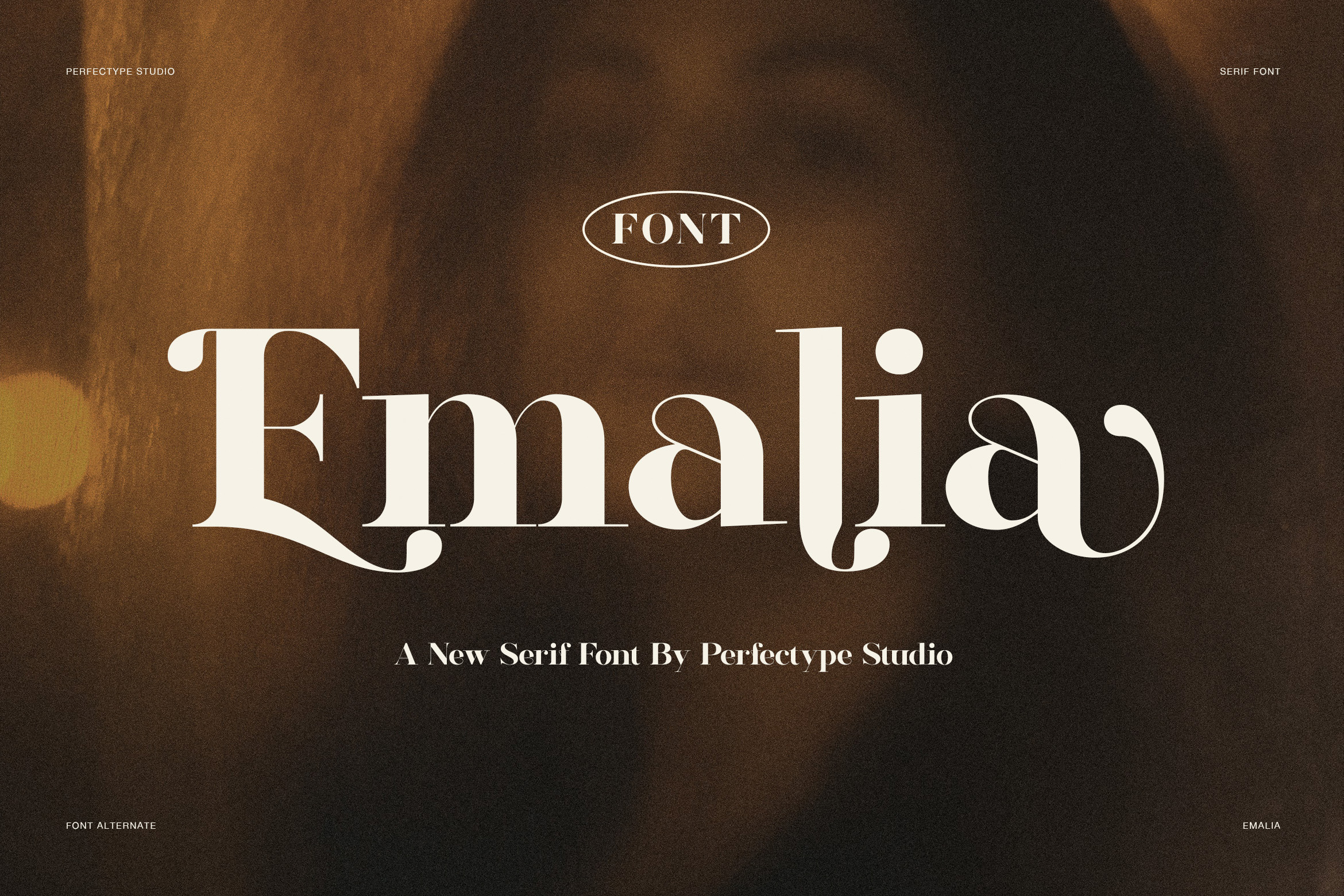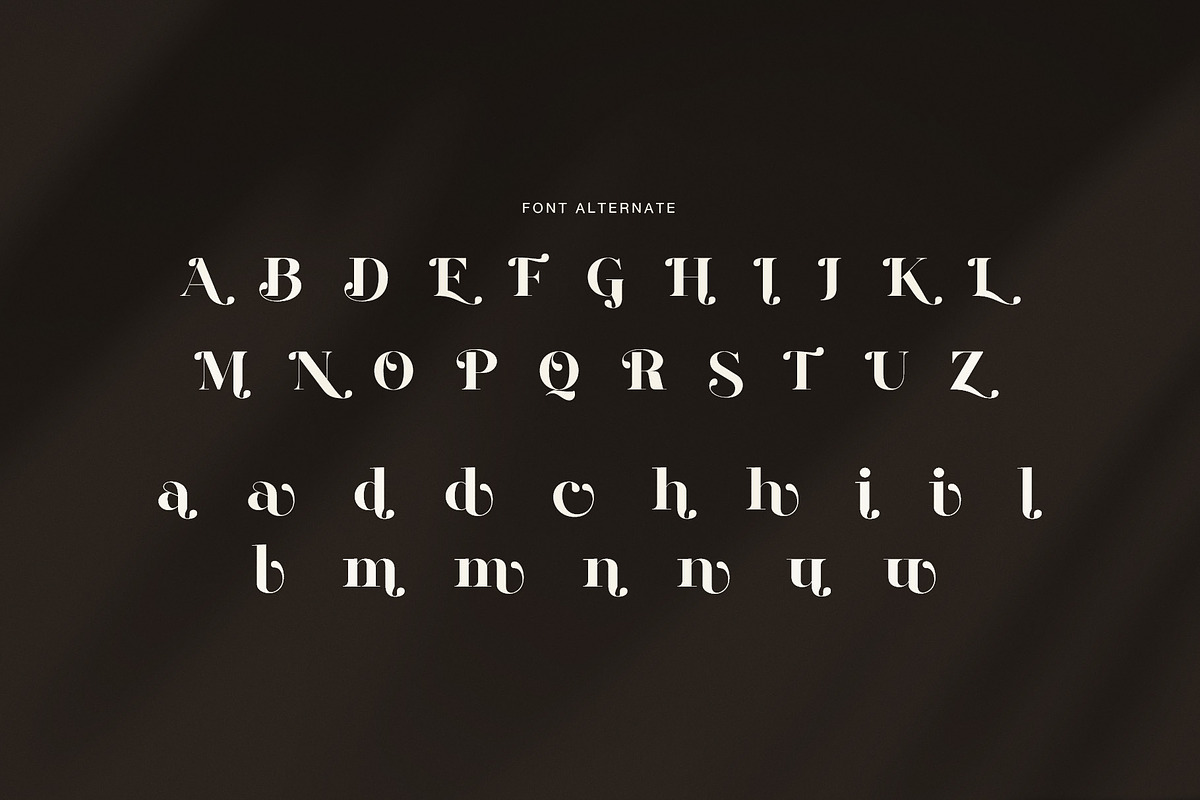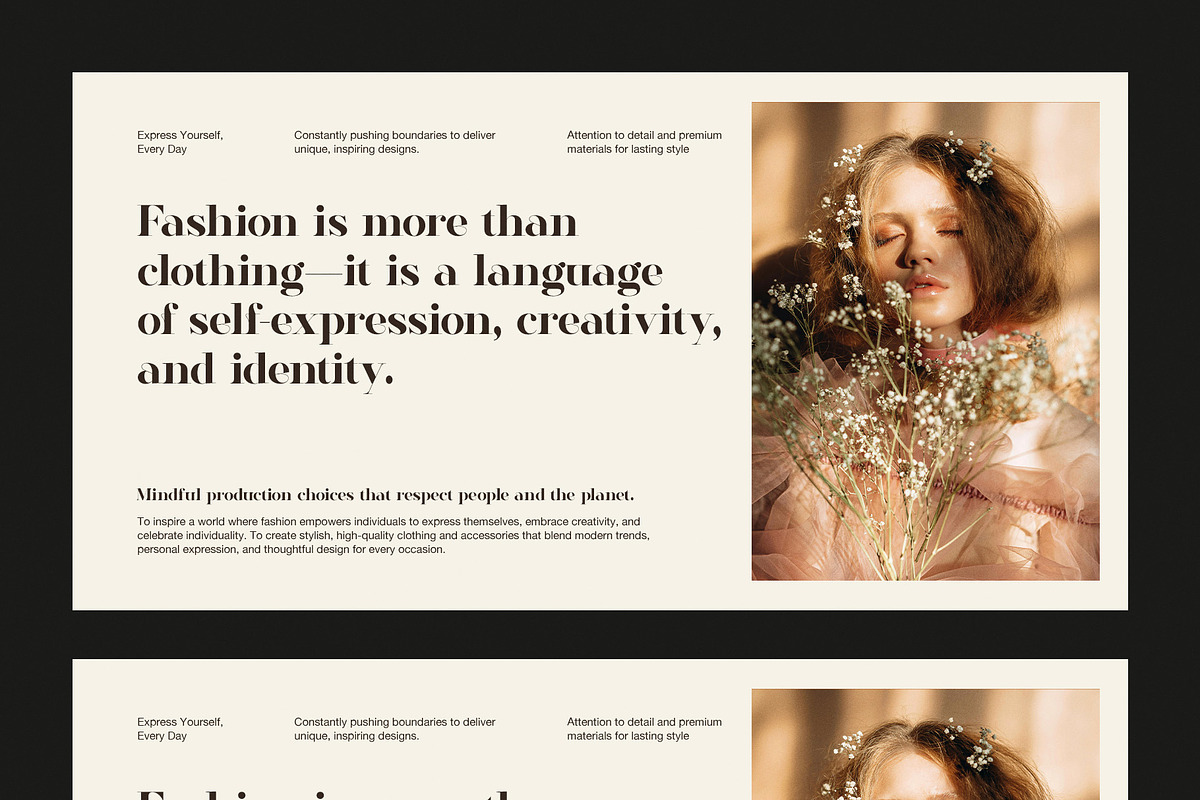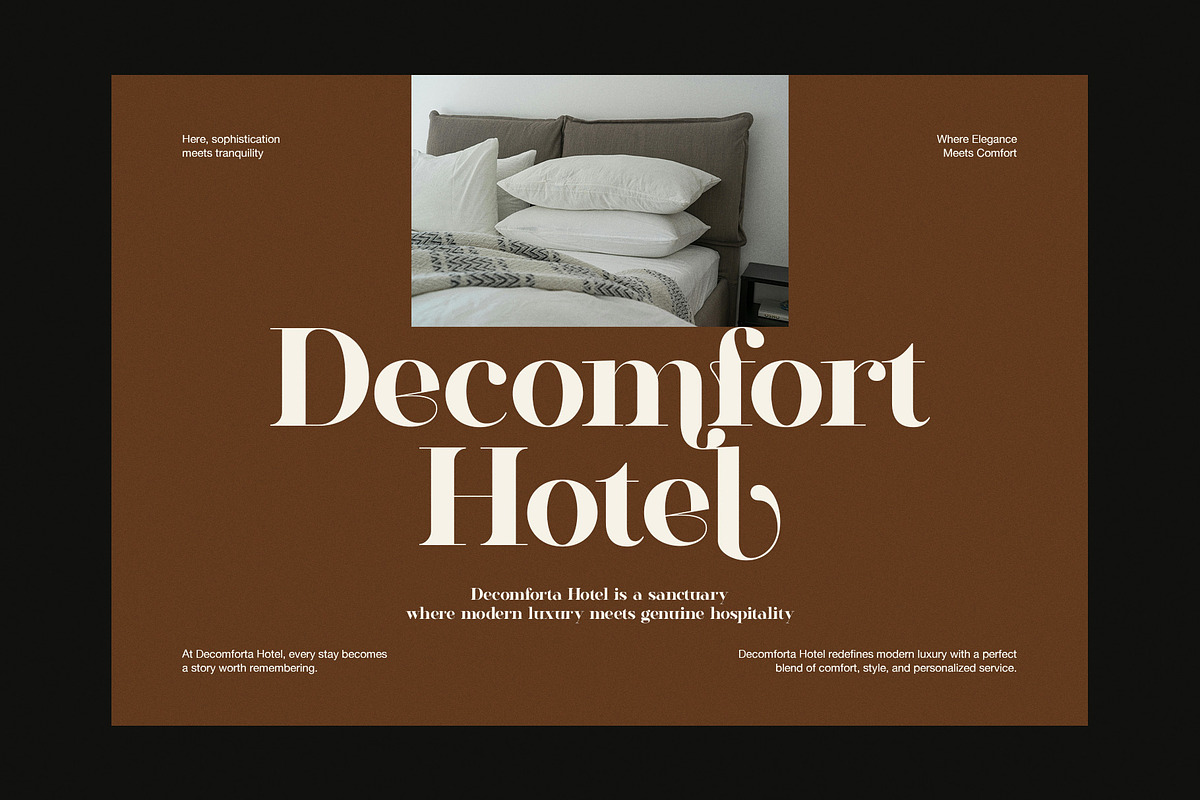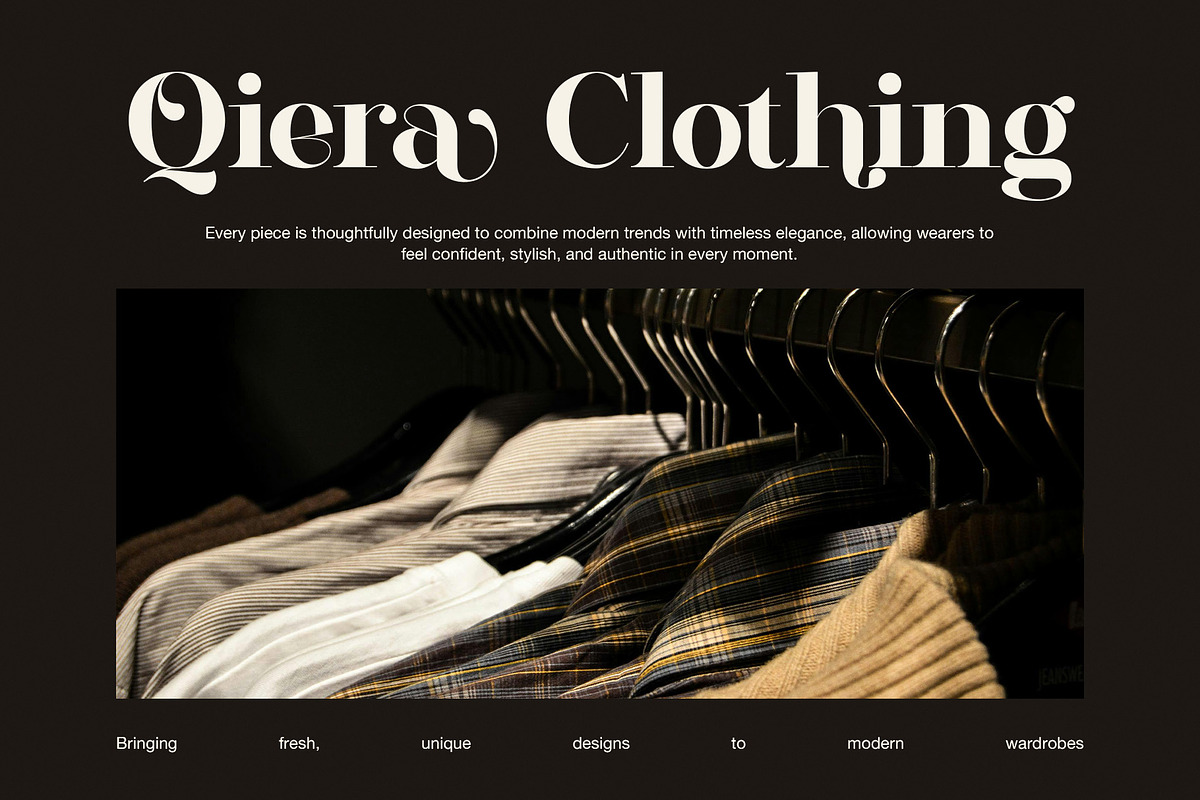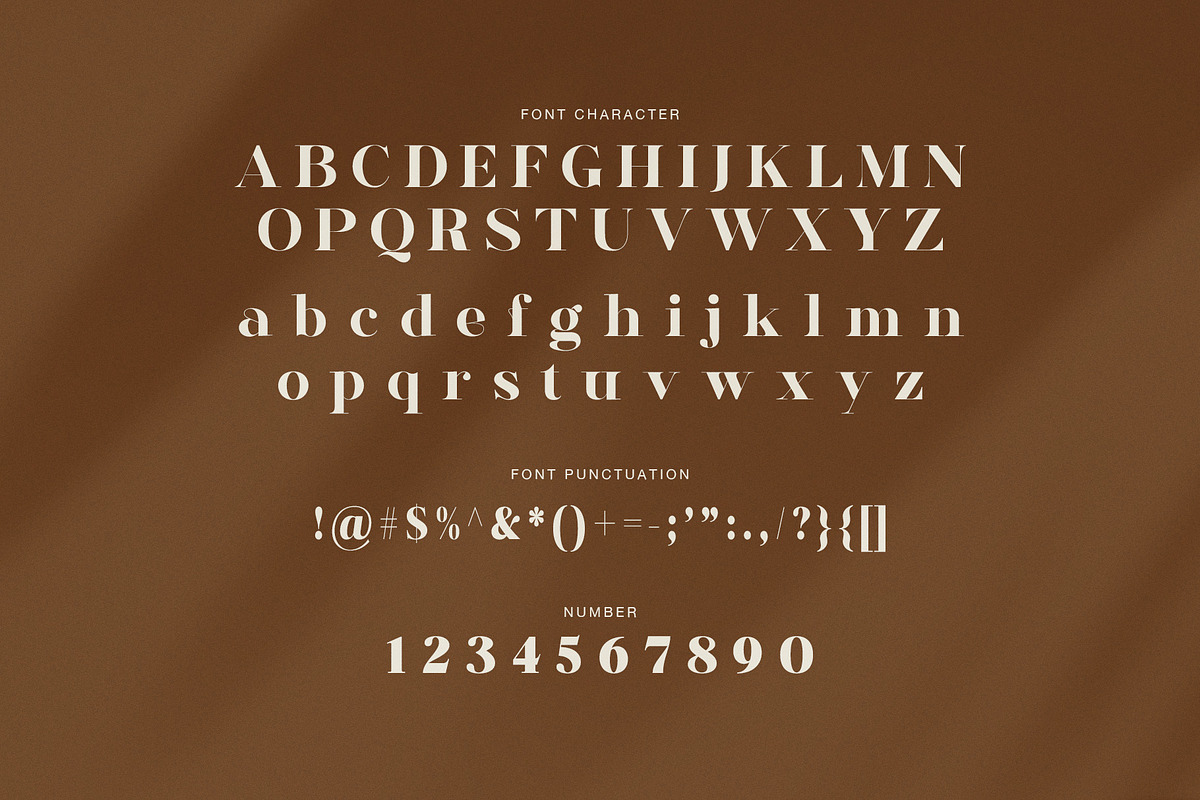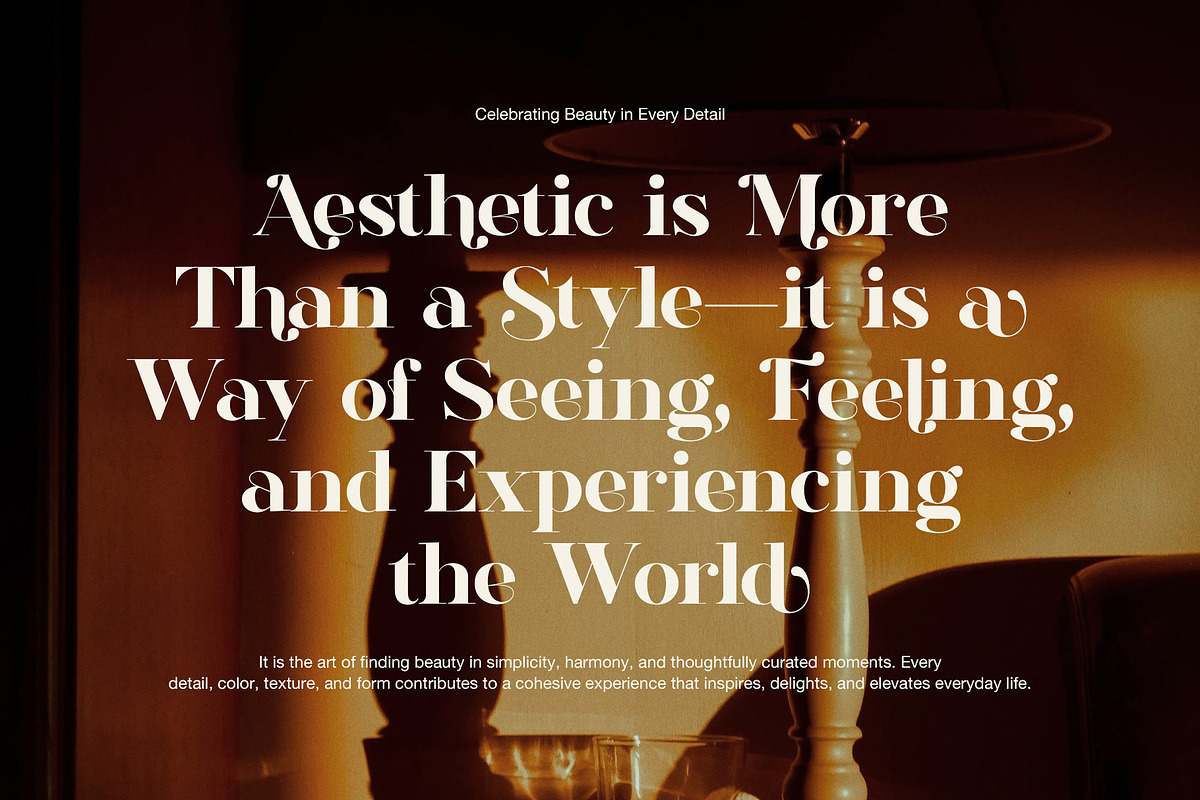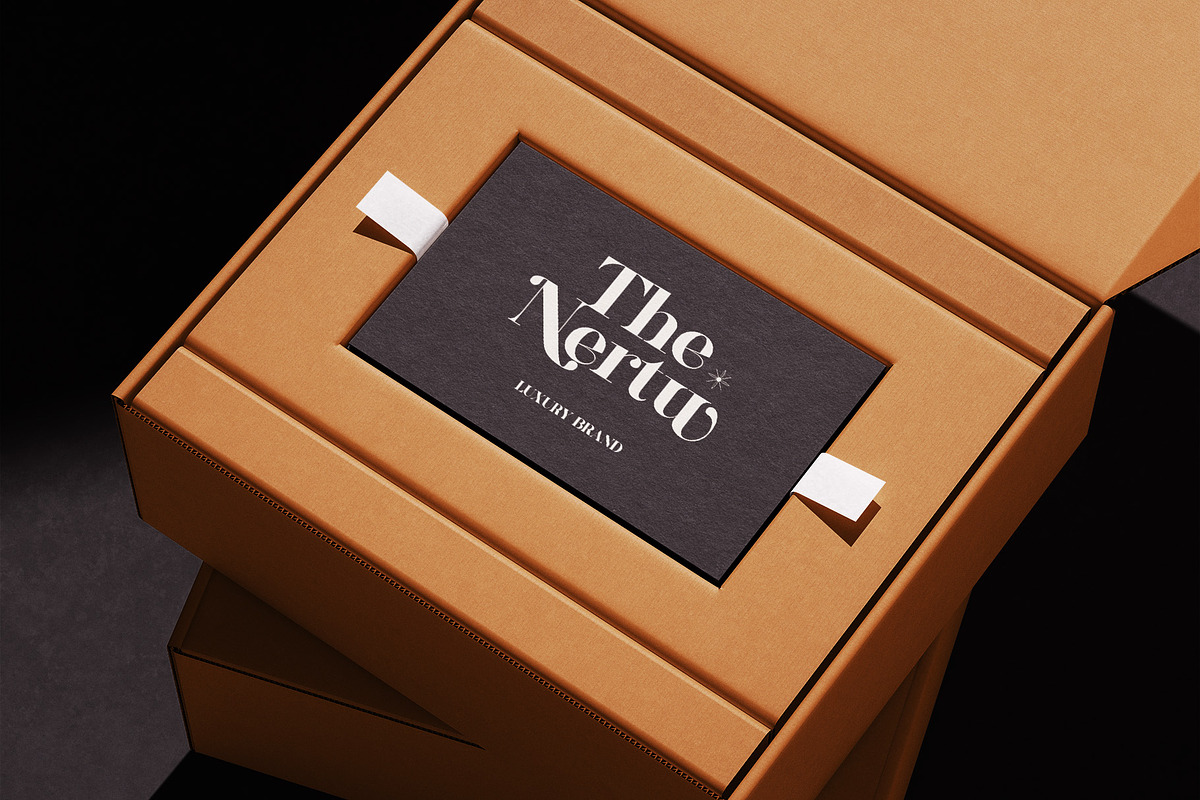
Emalia Elegant Serif Font
Emalia Elegant Serif Font is a refined display serif with a soft luxury mood. It blends classic serif beauty with graceful contrast and unique alternate details. As a result, it feels stylish, polished, and full of charm. At first look, Emalia appears elegant and calm. However, its letterforms also carry a strong visual character that makes every word feel more special.
The shape of this font is balanced and artistic. In addition, the strokes move between thin and bold parts with a smooth rhythm. This contrast gives the font a premium look without making it feel stiff. Several letters also feature decorative alternate forms, so text looks more expressive and more custom. Because of that, Emalia works very well for designers who want a serif font that feels luxurious yet still modern.
Emalia is especially strong for branding and display work. It looks beautiful in hotel identities, fashion editorials, beauty packaging, clothing labels, quote layouts, and luxury brand presentations. Moreover, it fits social media graphics, product packaging, business cards, boutique logos, and elegant invitations. The font has enough style to stand out, yet it still remains clear and usable in short text.
One of the best parts of Emalia is its alternate character set. These alternates add a soft decorative touch to many letters. Therefore, headlines, logos, and brand names can look more unique and memorable. Even so, the base design stays clean, so the font is still easy to use across many creative projects.
Main Features
- Elegant serif style with a luxury feel
- Beautiful contrast between bold and thin strokes
- Decorative alternate characters
- Stylish and memorable display look
- Ideal for branding, logos, and headlines
- Great for fashion, hotel, beauty, and editorial use
Why Designers Love It
Emalia gives every design a graceful and premium voice. At the same time, it keeps a clean structure that feels professional. The elegant shapes bring beauty, while the alternate forms add personality. For that reason, the font can make layouts feel more refined and more expressive.
If you need a serif font that looks classy, stylish, and timeless, Emalia Elegant Serif Font is a strong choice. It helps your design feel more polished, more elegant, and more memorable. So, whether you create for fashion brands, luxury products, hotels, or editorials, this font can leave a lasting impression.